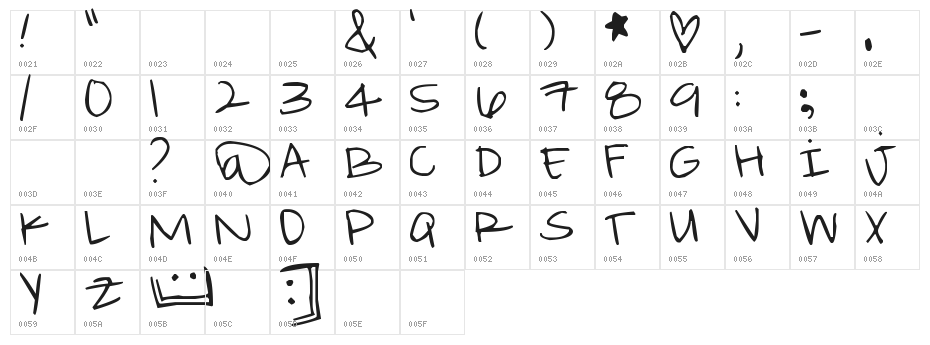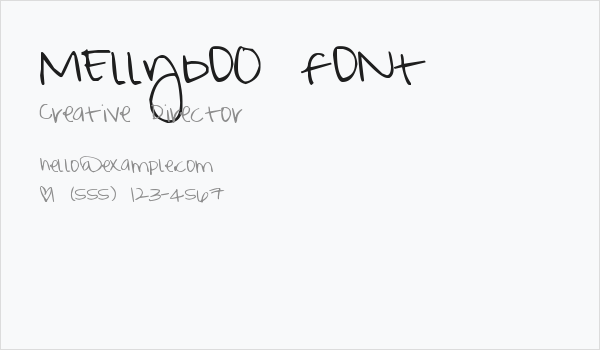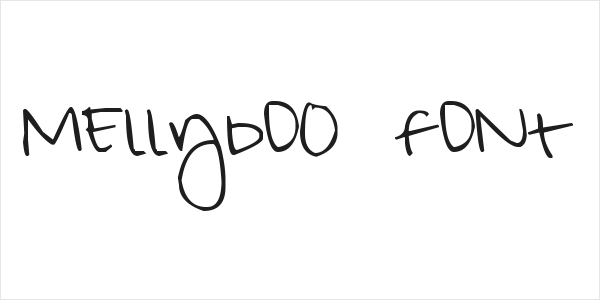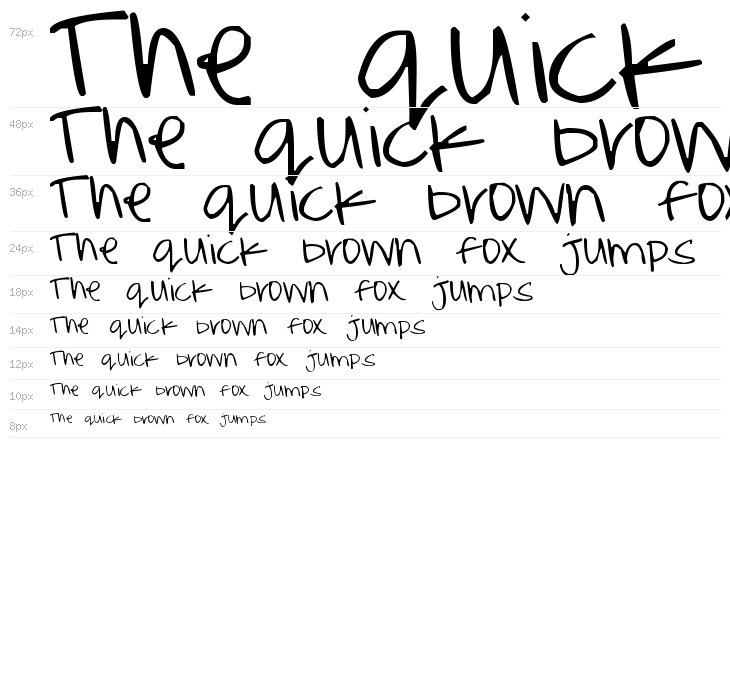
MEllybO0 fONt Font
MEllybO0 fONt Description
This font features a playful and casual handwritten style, characterized by its irregular and dynamic strokes. The letters exhibit a natural flow, with varying heights and angles that give it a lively and informal appearance. The uppercase and lowercase letters maintain a consistent style, with rounded edges and a slightly tilted orientation, enhancing its approachable and friendly feel. The numerals and special characters follow the same whimsical design, making it suitable for creative and informal projects. The overall look is energetic and spontaneous, perfect for conveying a sense of fun and creativity.
| Proposed Projects | Ideal for greeting cards, children's books, casual invitations, and creative branding. |